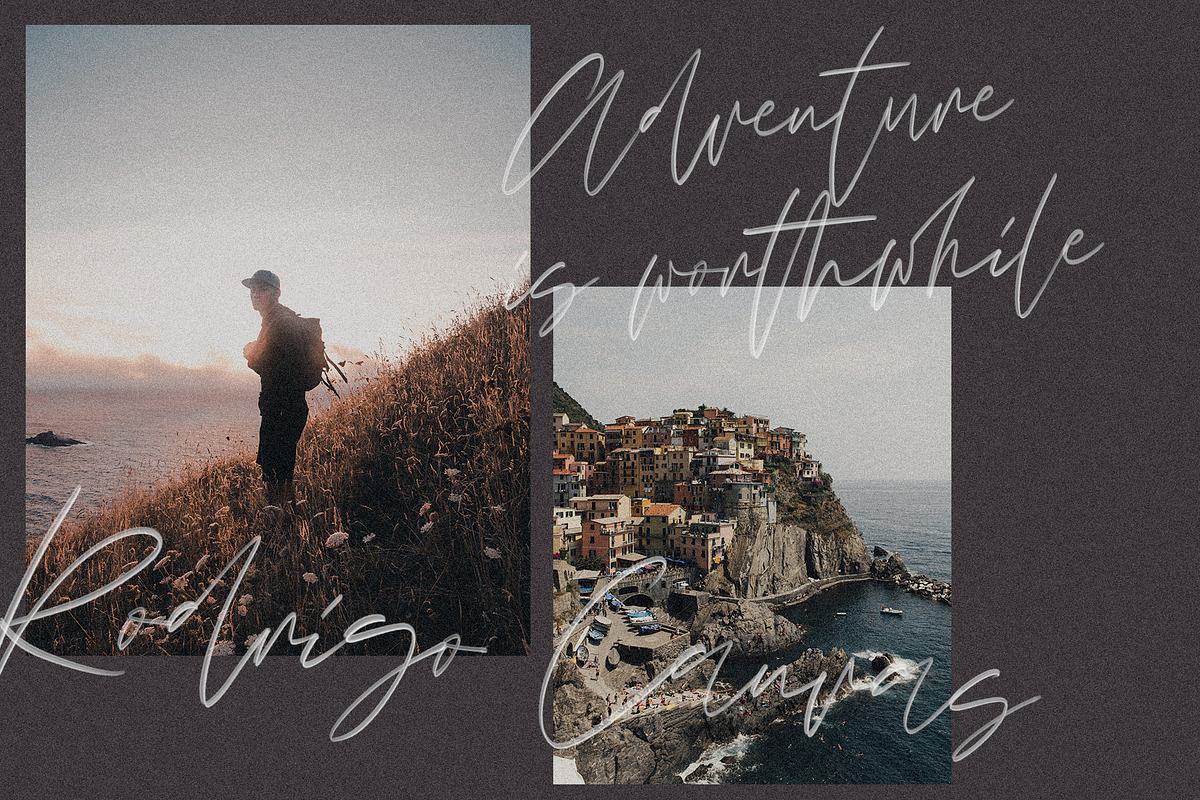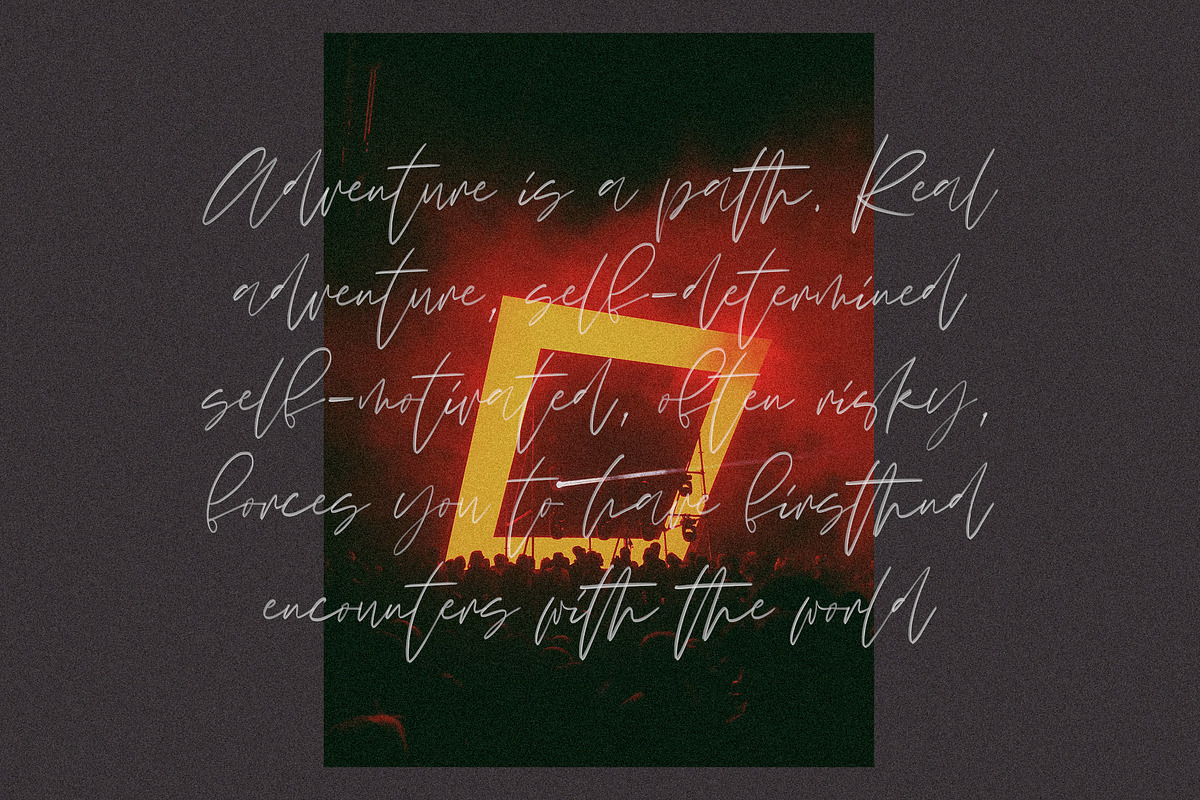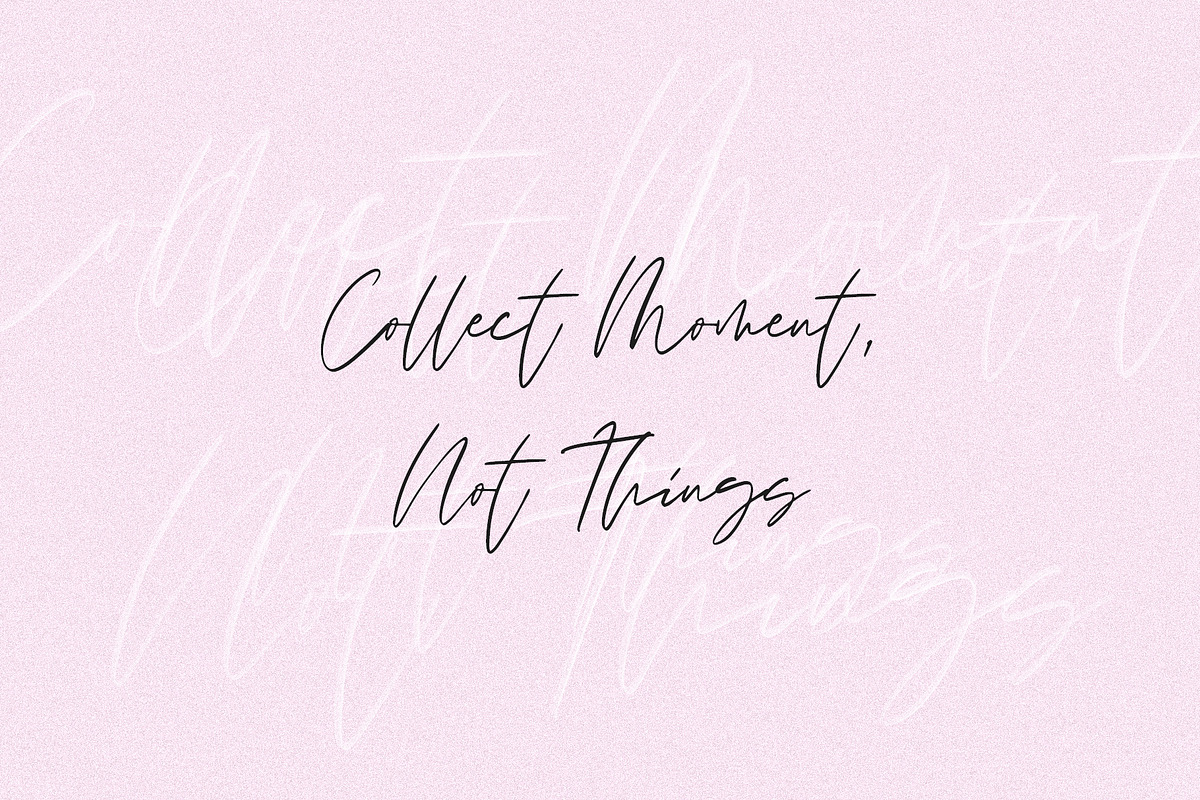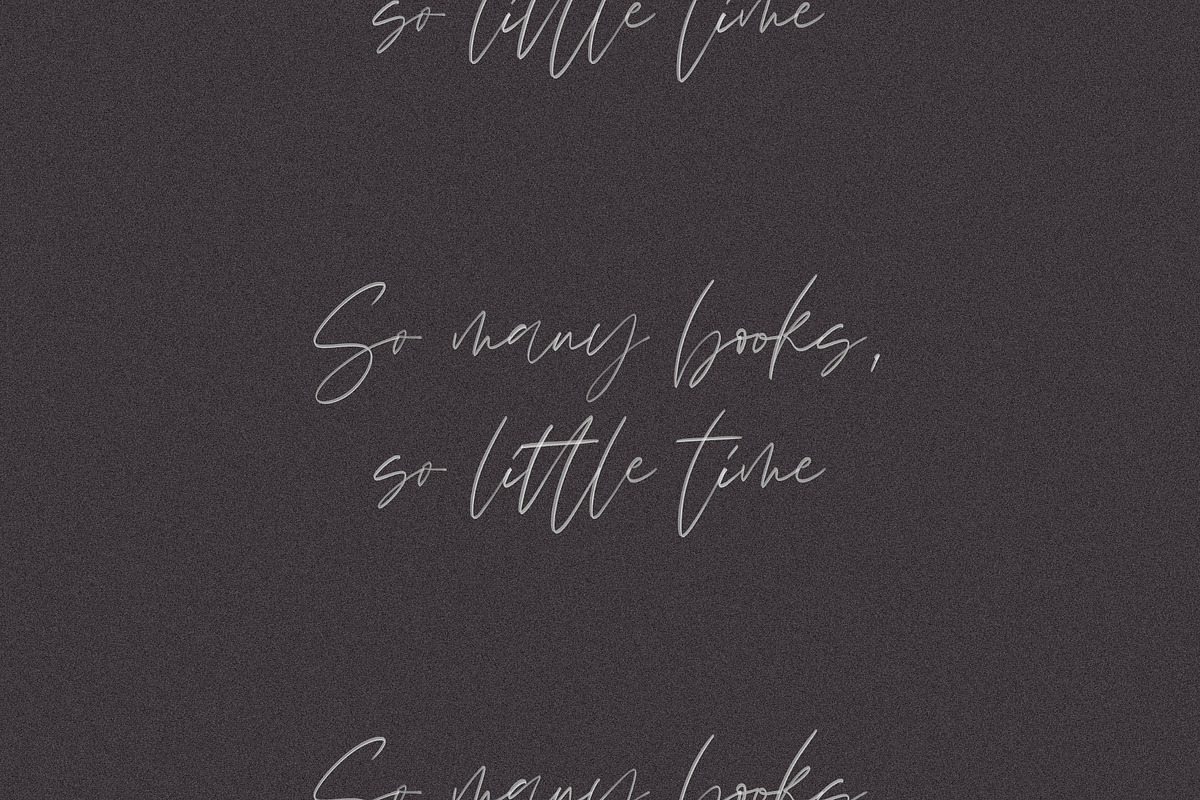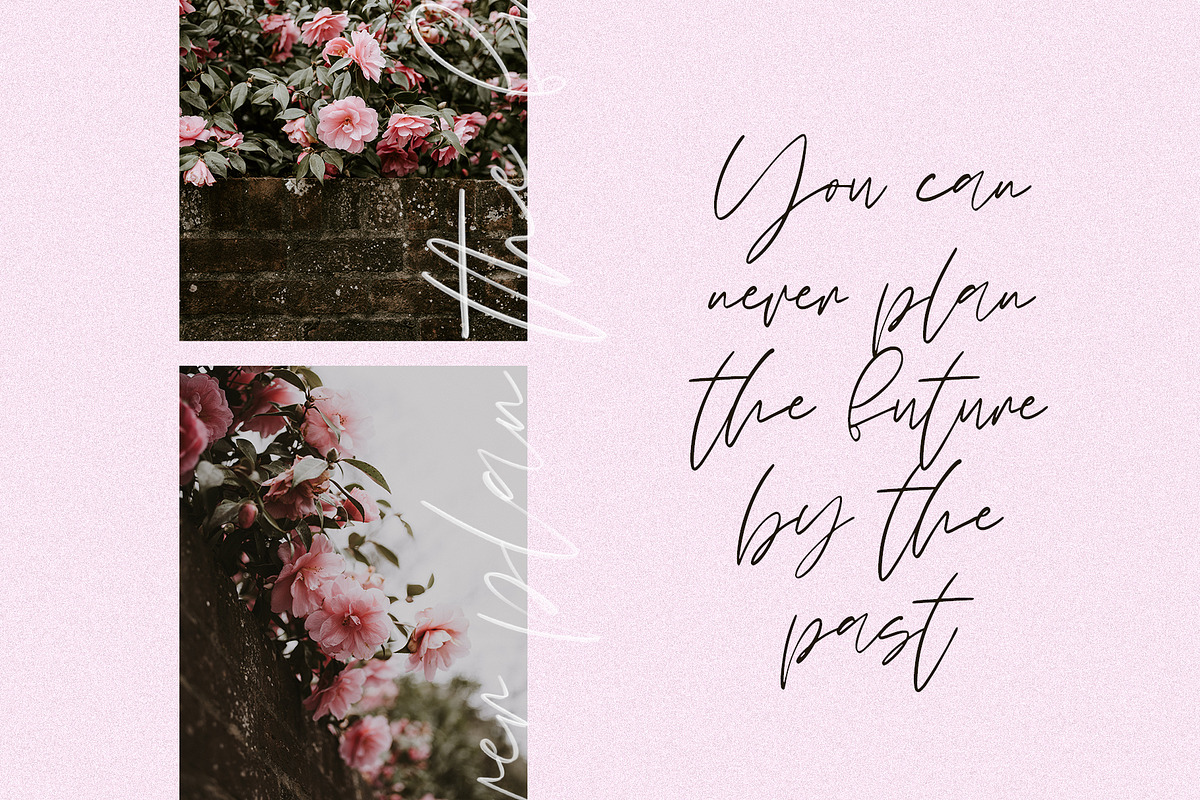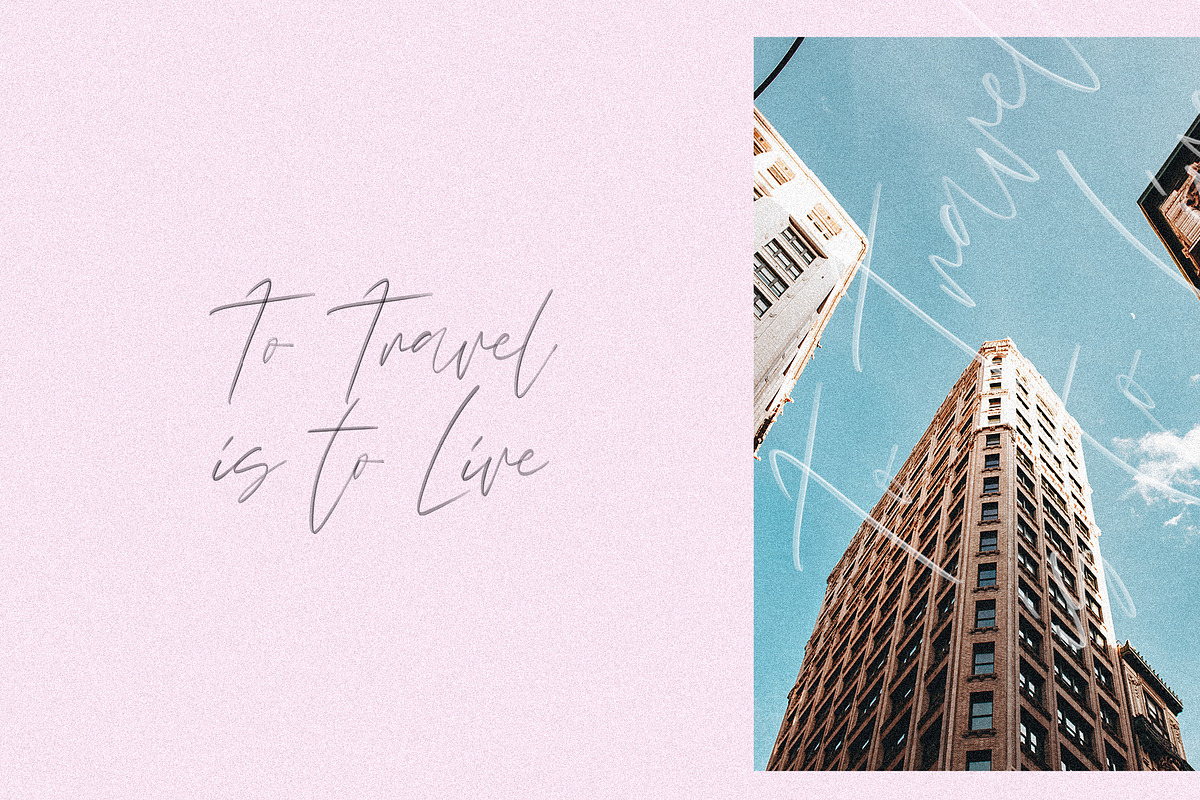
ROSALINA SVG Font
Hello, friends. Here's my new experiment. This font breaks the boundaries even more. I used SVG technology to achieve maximum realism. The font retains the texture and transparency of the original tool. Now the inscription looks as authentic as possible :)
Try my new font, I think it combines all these qualities. Simple and clear, looks at ease. It is perfect for signatures or design, wedding invites and cards, where you do not need a strict style :)
Uppercase and lowercase
Numbers and punctuation
Foreign language support